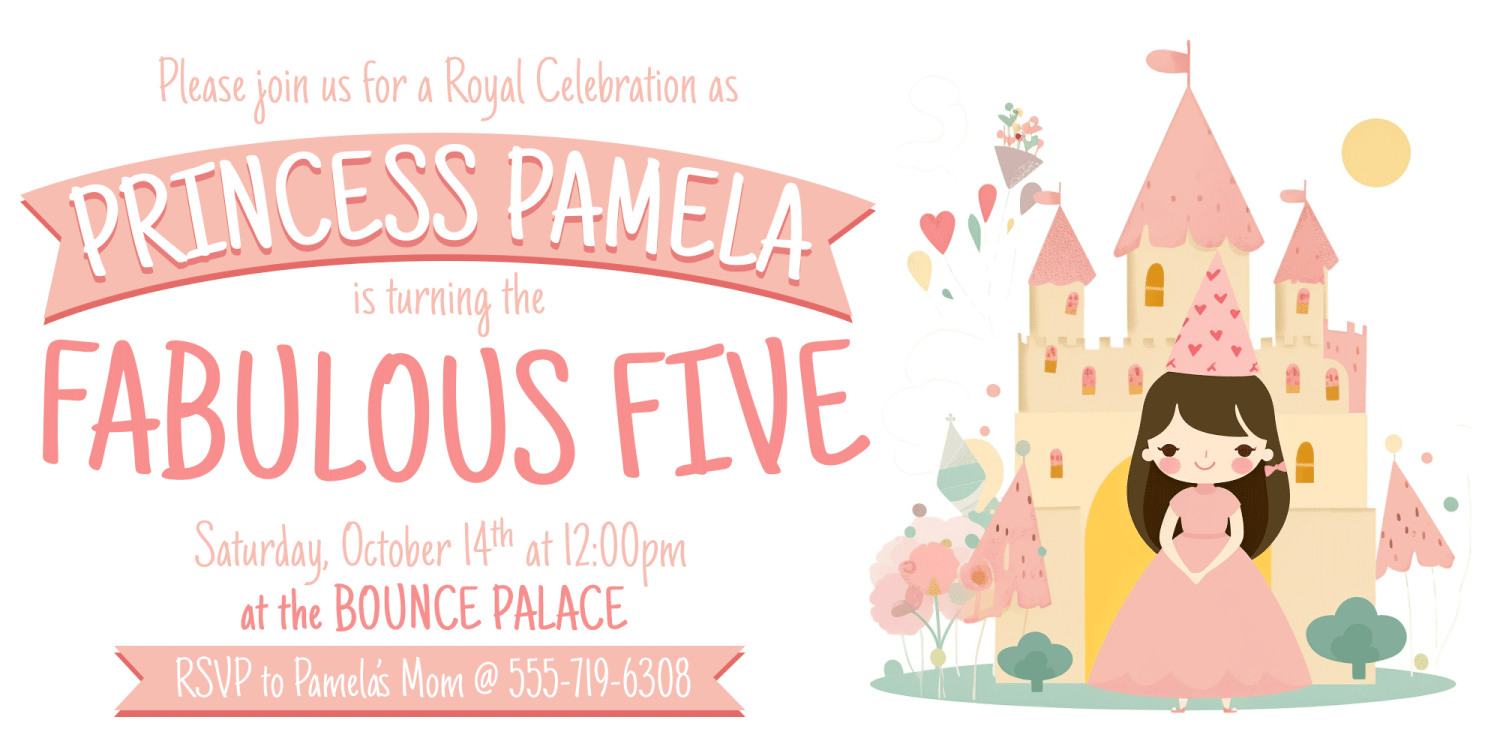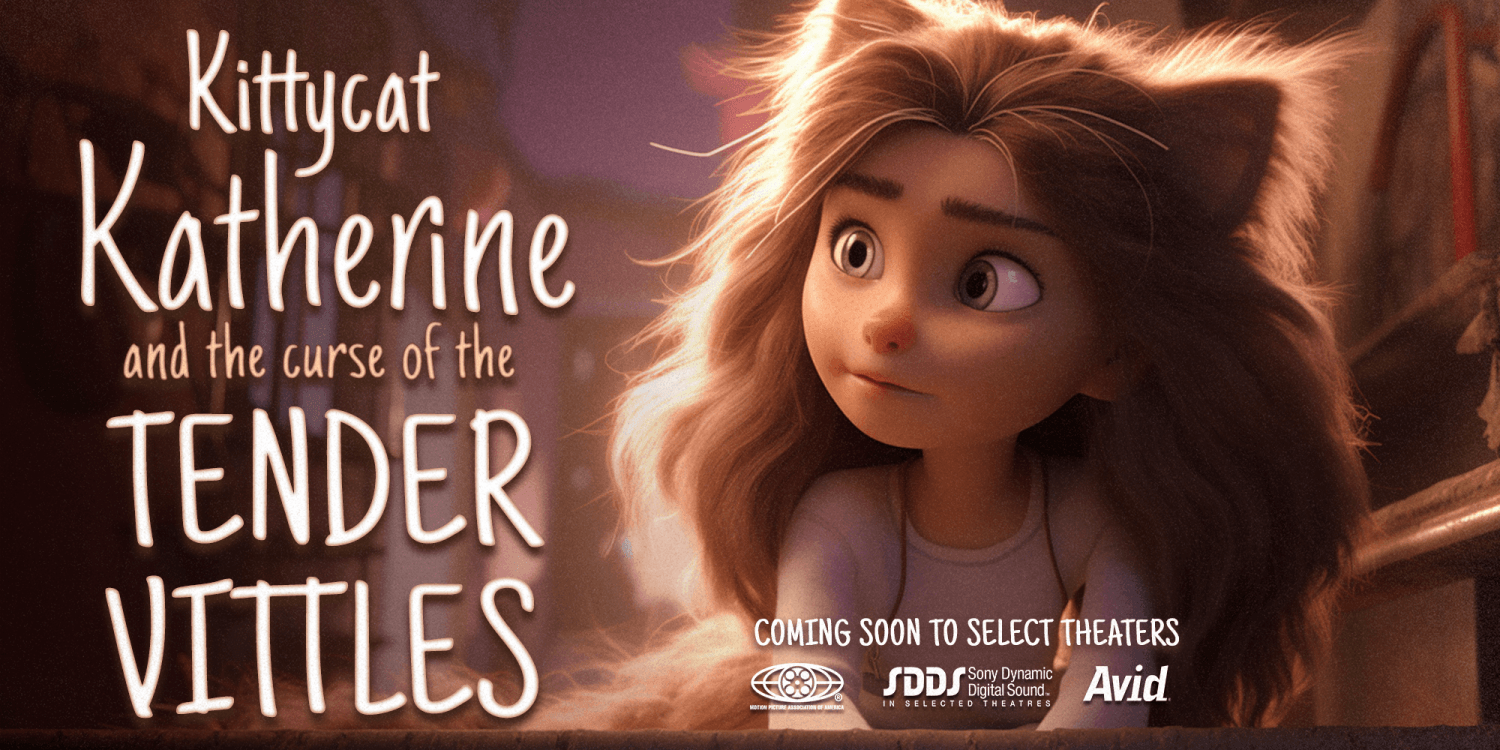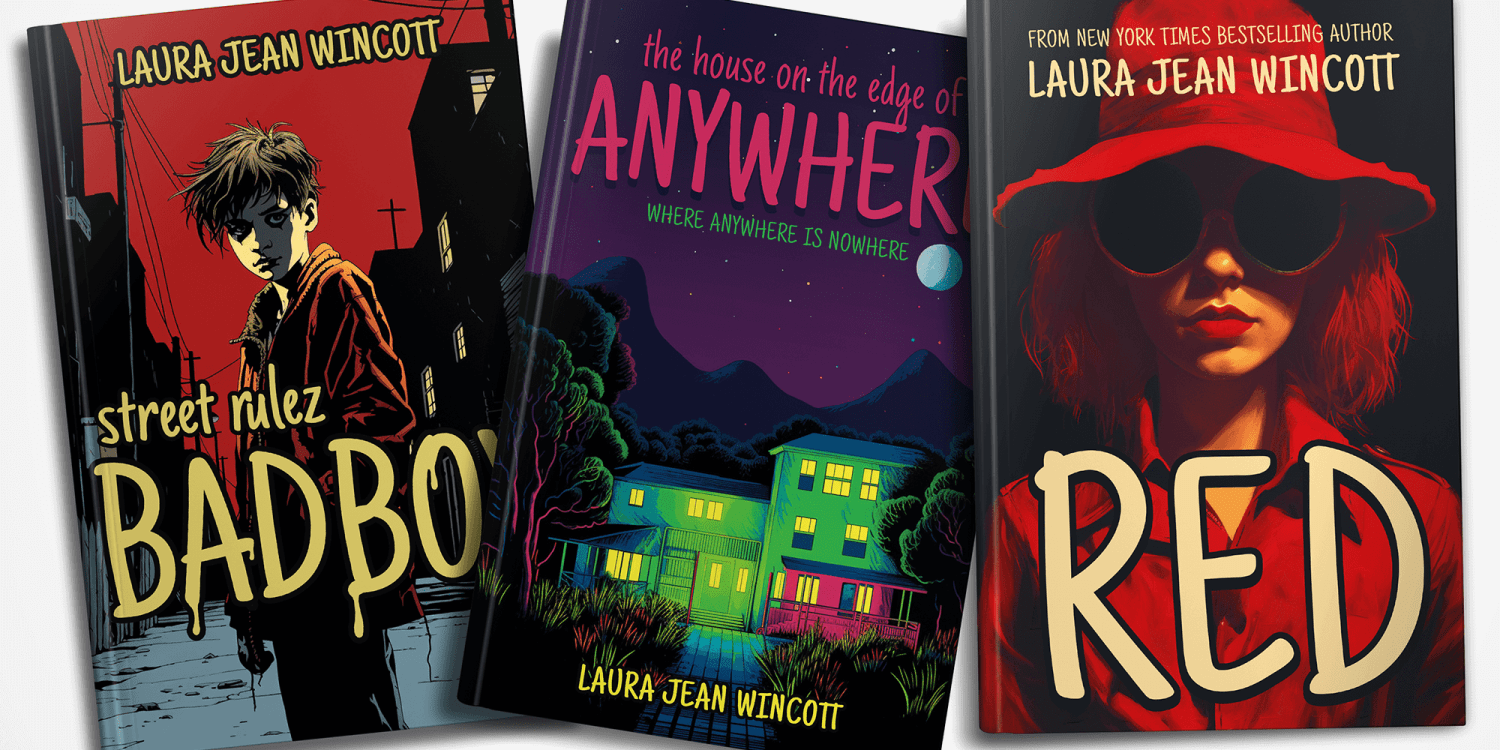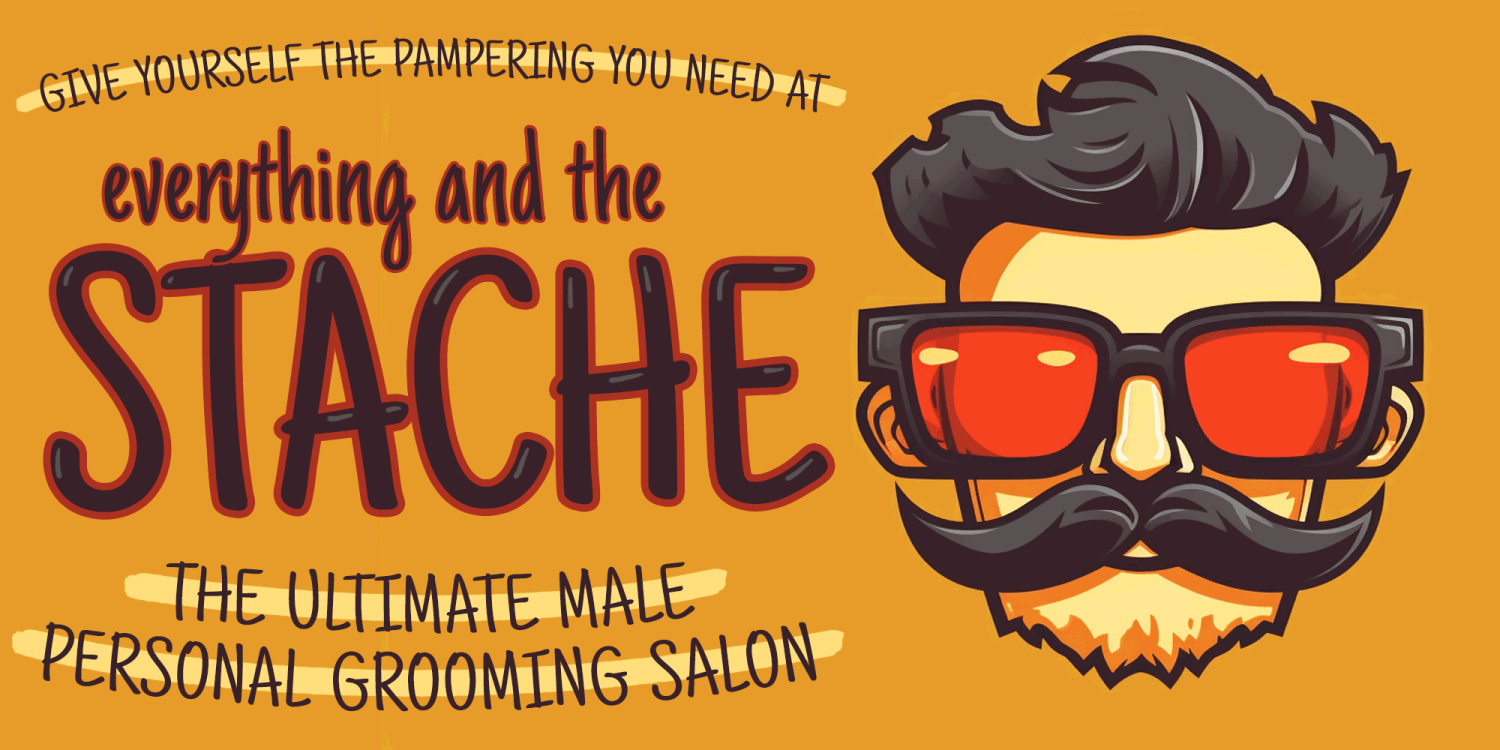
About Just Another Hand Pro
My personal handwriting has changed a number of times over the years. Just Another Hand is a narrow brush drawn handwriting font, inspired very loosely by the handwriting of my high school days. There's a little artistic license taken with Just Another…